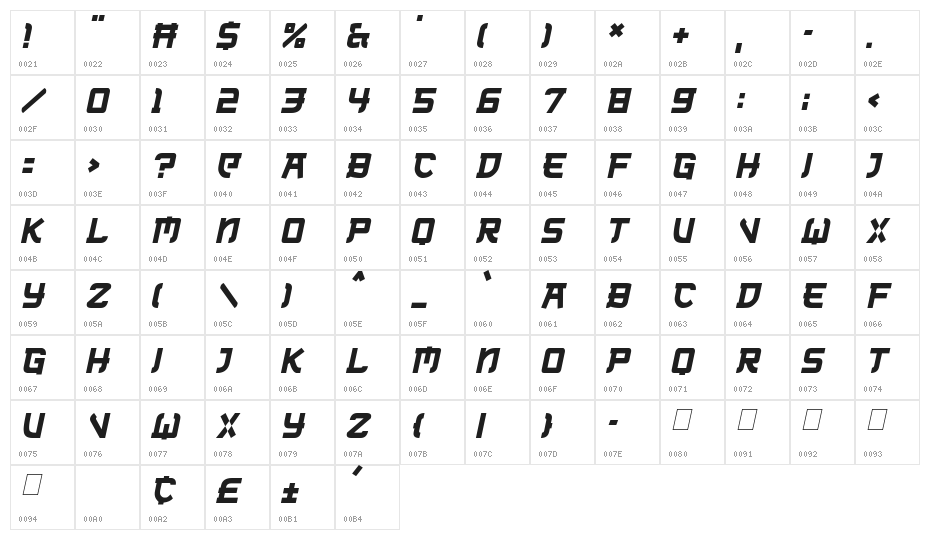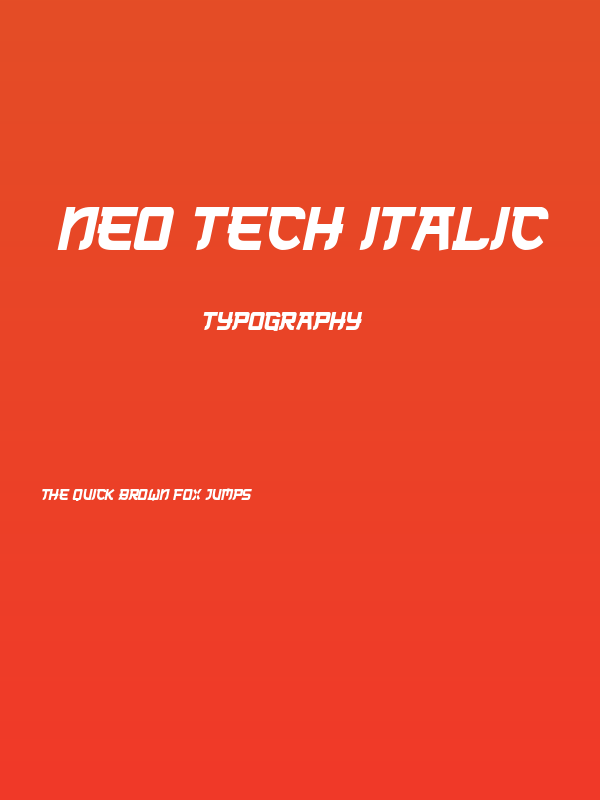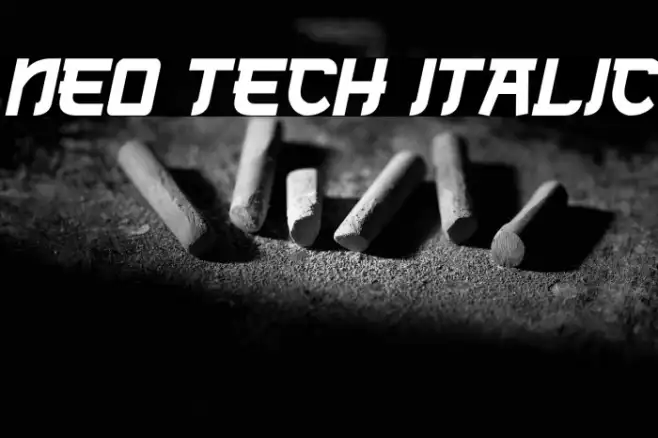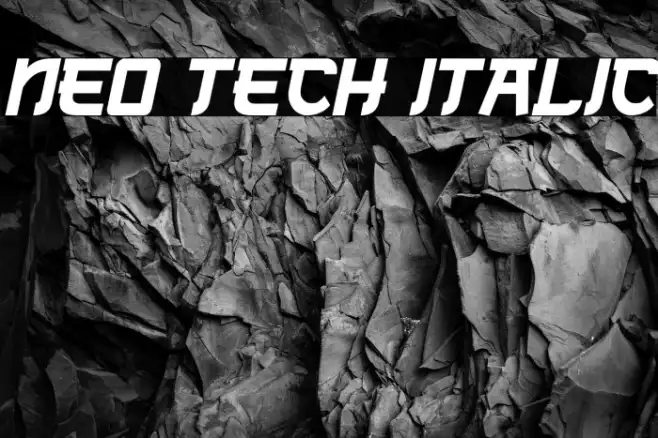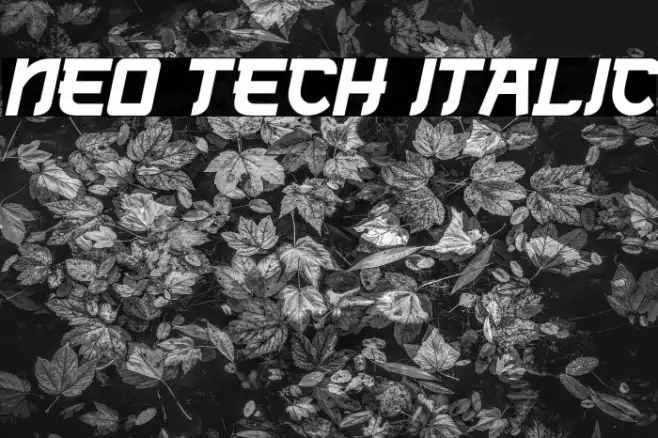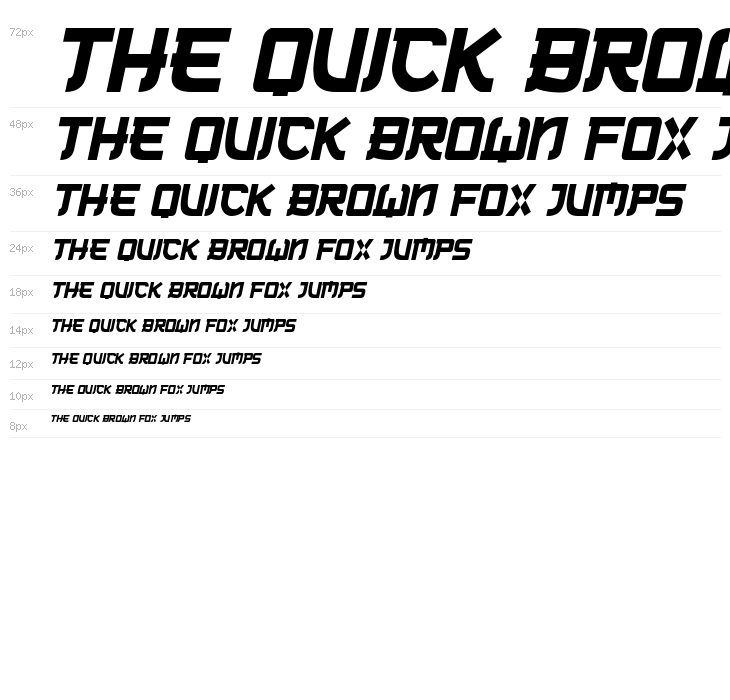
Neo Tech Italic Font
Neo Tech Italic Description
This font features a futuristic and angular design, characterized by its sharp edges and dynamic slant. The letters are bold and convey a sense of speed and modernity, making it ideal for tech-related themes. The uppercase and lowercase letters maintain a consistent style, with a slightly condensed width that enhances its sleek appearance. The numerals are equally bold, ensuring readability and impact. Special characters are designed to match the overall aesthetic, providing a cohesive look across all glyphs. The font's italic nature adds to its energetic and forward-moving feel.
| Proposed Projects | Ideal for technology branding, video game titles, sci-fi movie posters, and modern digital interfaces. |